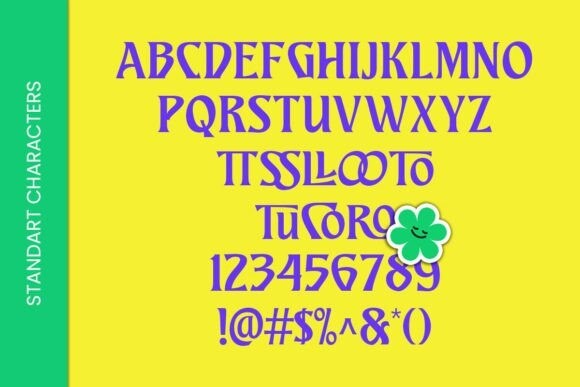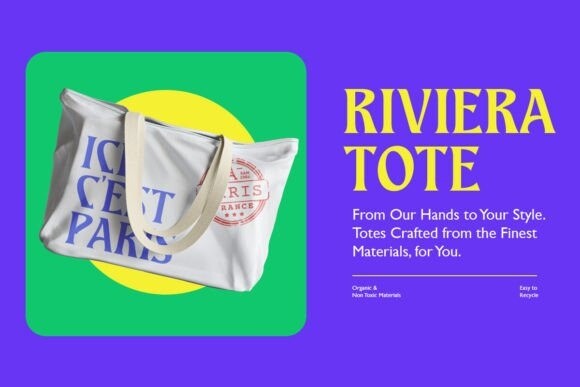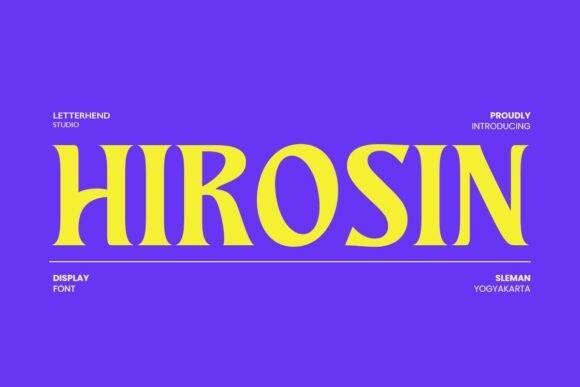
Hirosin Font
Hirosin Font is a modern display font. This typeface has been made carefully to ensure its premium quality. This typeface can be used for modern themes or vintage looks. Very suitable for logo, headline, title, and the other various formal forms such as invitations, labels, logos, magazines, books, greeting/wedding cards, packaging, fashion, makeup, stationery, novels, labels, or any type of advertising purpose.